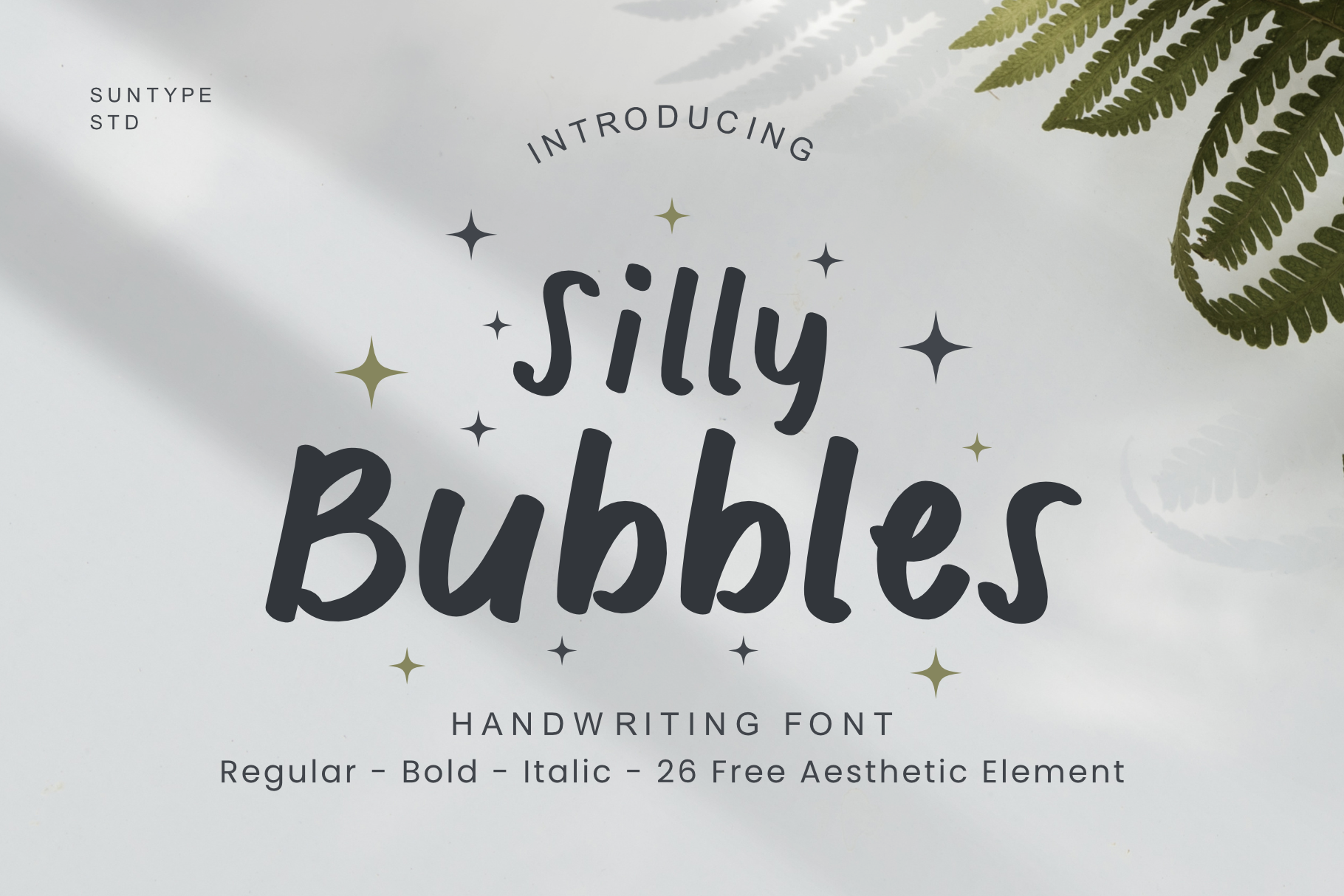
Silly Bubbles Handwriting Font
Infused with youthful energy, these fonts are sure to captivate your audience and leave a lasting impression. From adorable animals to charming flourishes, each font in our collection tells a story and sparks the imagination. Let your creativity run wild as you explore the endless possibilities of our cute fonts, designed to bring a smile to your face and warmth to your heart.
- Standart alphabet (lowercase, uppercase and number)